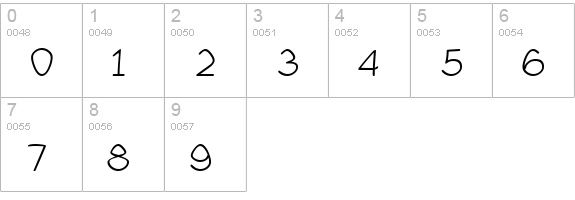
IEOcean1 Font Details
IEOcean1 font is a stunning typeface that will instantly transport you to the depths of the ocean. With its beautifully designed characters and intricate details, this font captures the essence of the sea in a truly mesmerizing way. The flowing lines and curves of each letter mimic the ebb and flow of the waves, creating a sense of movement and tranquility. What sets IEOcean1 font apart is not only its exceptional design, but also the fact that it is available for free. Yes, you read that right - this incredible font can be downloaded at no cost from FontsMarket.com. Whether you're a designer looking to add a touch of oceanic elegance to your projects or simply an individual who appreciates the beauty of typography, IEOcean1 font is the perfect choice. Imagine using this font for a beach-themed party invitation, a logo for a coastal business, or even for creating stunning social media graphics that will make your followers feel like they're lounging by the seaside. The possibilities are endless with IEOcean1 font. So why wait? Dive into the world of IEOcean1 font and let its enchanting design take your projects to new depths of creativity. Remember, this font is freely available for download at FontsMarket.com, so don't miss out on the opportunity to bring a touch of the ocean to your typography.